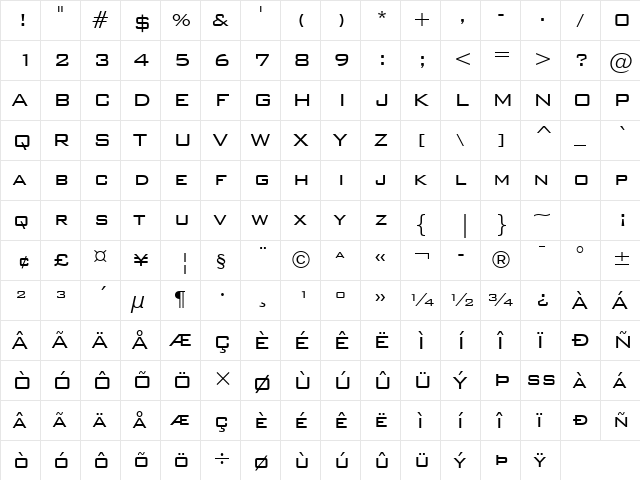
BankGothic Lt BT Light Font Preview
BankGothic Lt BT Light
BankGothic Lt BT Light Font Details
Design Context for BankGothic Lt BT Typeface
BankGothic Lt BT takes a clean, functional approach — its unadorned letterforms prioritise legibility and work reliably across screen and print environments. Its slender proportions lend an understated elegance to any composition.
A natural fit for high-end product packaging, luxury brand identities, and refined web typography.
Font Pairing: Pair BankGothic Lt BT with a medium or bold serif for headlines — the weight contrast creates an elegant, high-end feel.
Pro Tip: Use BankGothic Lt BT with generous tracking and line-height for the most luxurious effect — light sans-serifs reward spacious, considered layouts.